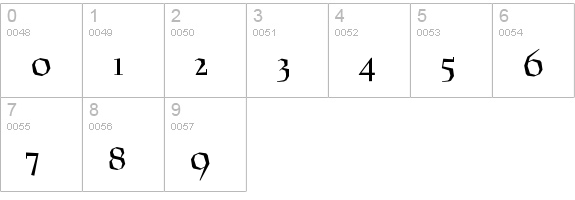
RuzenaAntikva-Bold Font Details
RuzenaAntikva-Bold is a strong, high-contrast variant in the RuzenaAntikva typeface family \xE2\x80\x94 well suited to headlines, attention-grabbing titles, and strong calls-to-action.
Ruzena Antikva-Bold is a stunning and bold typeface that exudes elegance and sophistication. Its strong and commanding presence makes it perfect for headlines, titles, and any design project that requires a touch of drama. The sharp serifs and clean lines give this font a timeless and classic look that is sure to make a statement. What sets Ruzena Antikva-Bold apart is that it is not only visually striking but also versatile and easy to read. Whether used in print or digital media, this font ensures clear communication and readability without sacrificing style. Its bold weight commands attention without being overpowering, making it an ideal choice for grabbing the viewer's eye. And the best part? Ruzena Antikva-Bold is available for free download at FontsMarket.com. This means you can bring this premium font into your projects without breaking the bank. So why wait? Elevate your designs with the bold and beautiful Ruzena Antikva-Bold today!